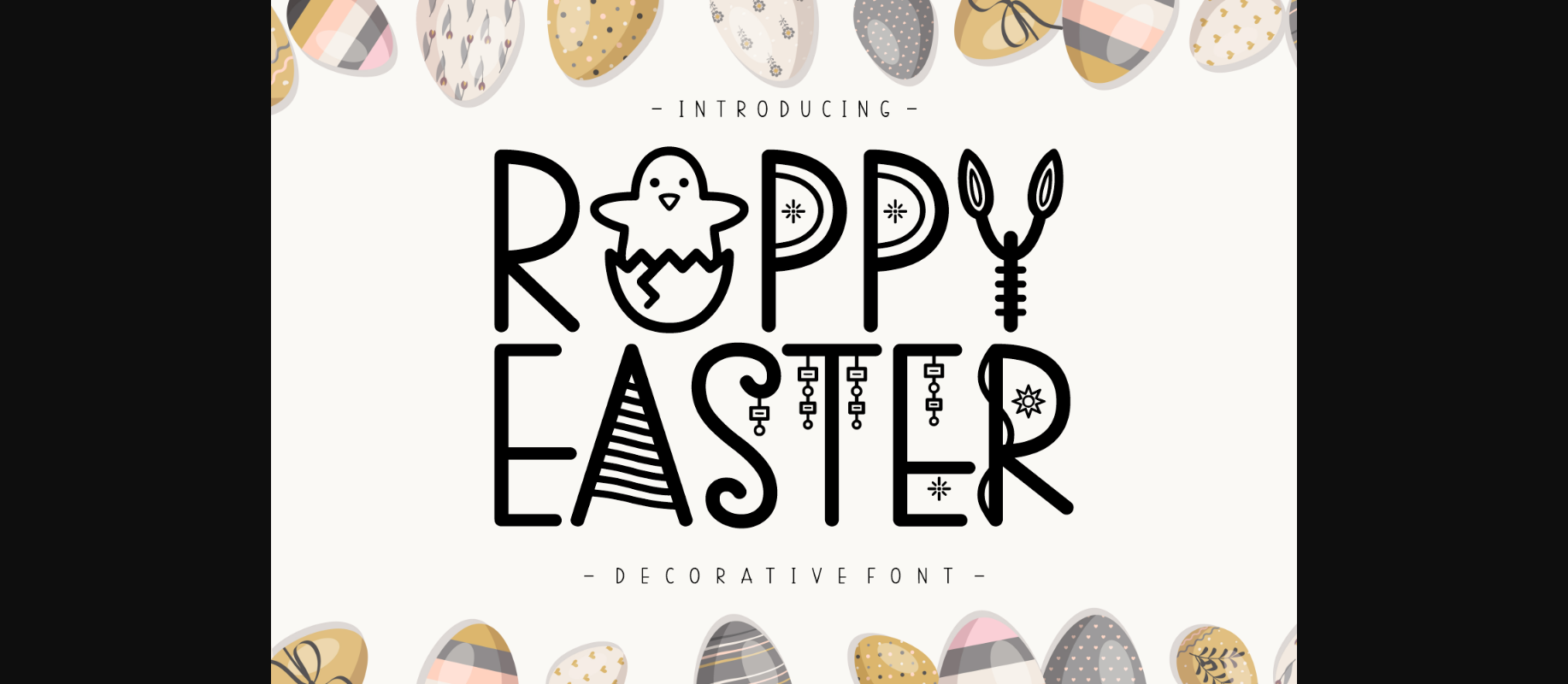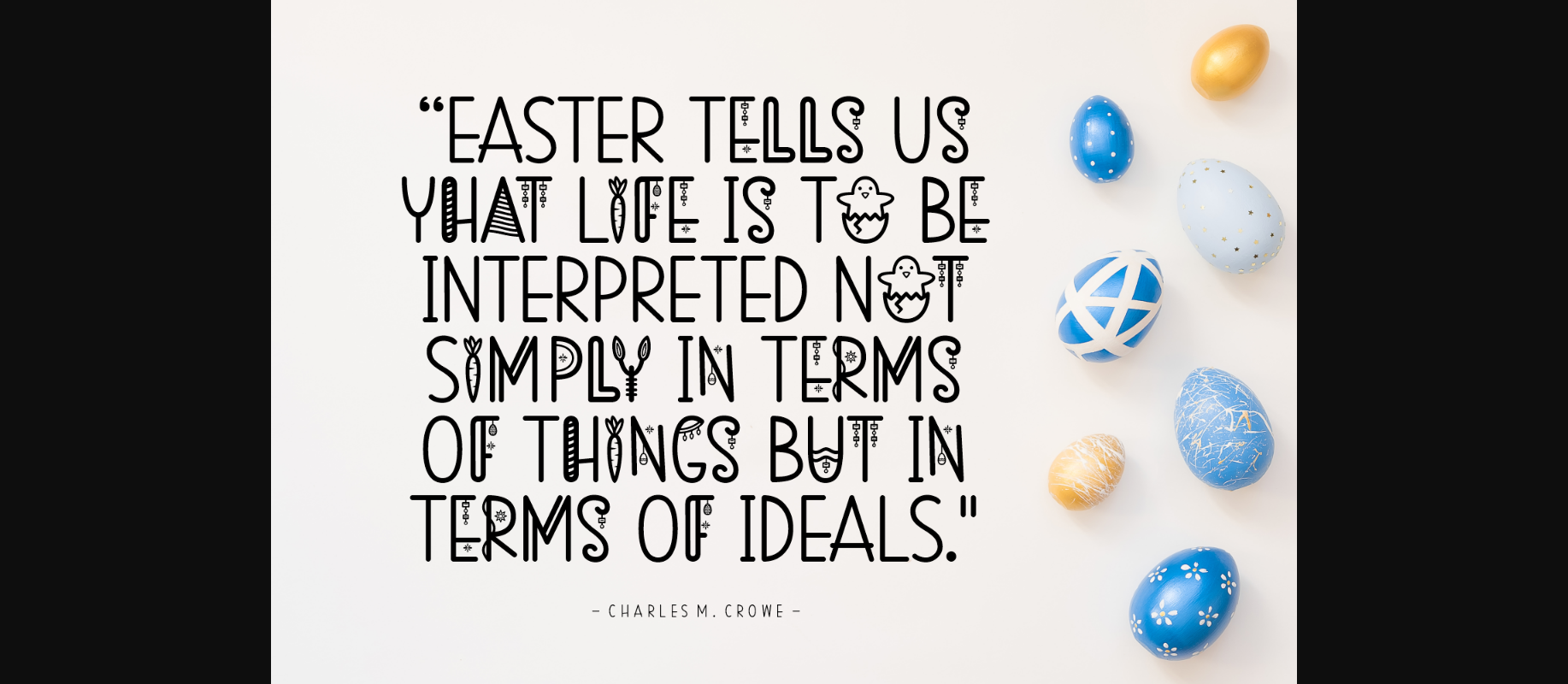
About Roppy Easter Font
This Easter-themed font features adorable Easter elements inside the letters, adding a playful and cute touch to any design. The tiny bunnies, eggs, and flowers are perfect for Easter-themed projects and will bring a smile to anyone’s face. Use Roppy Easter for invitations, greeting cards, or any other Easter-inspired design.